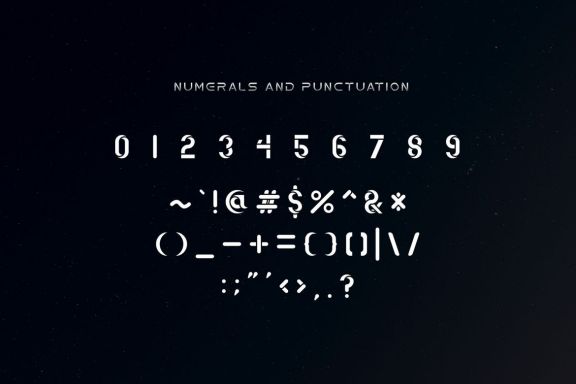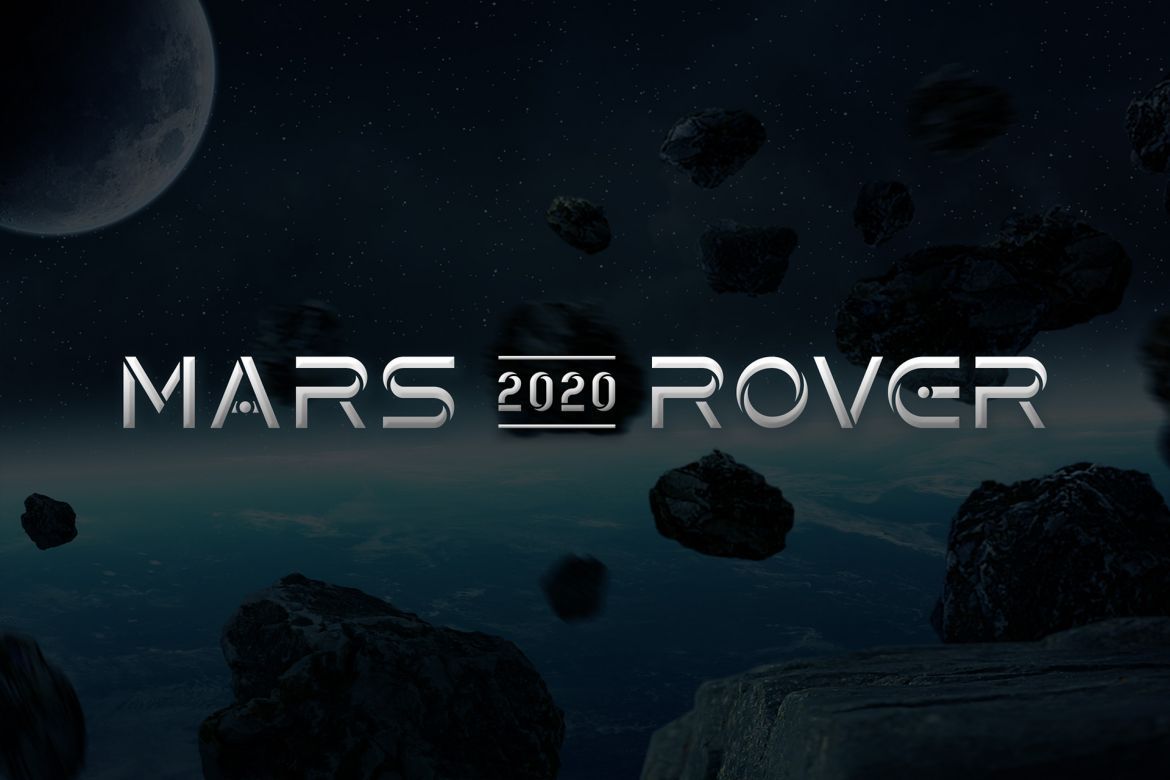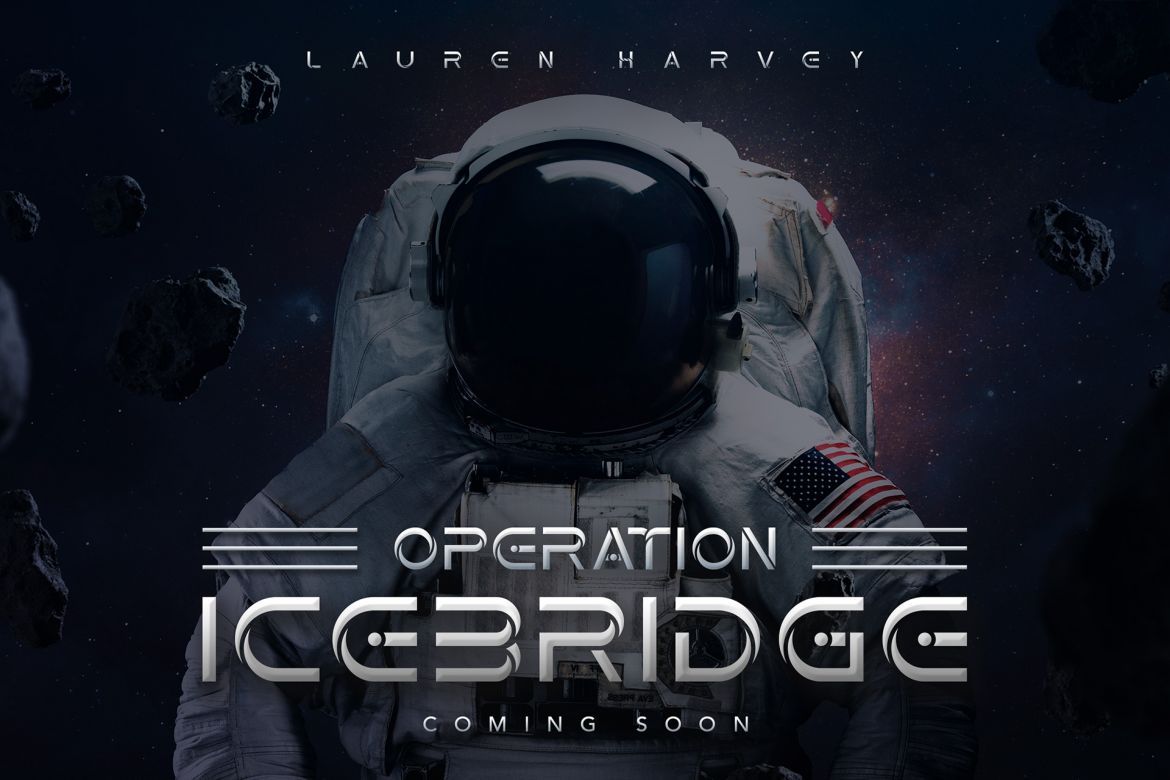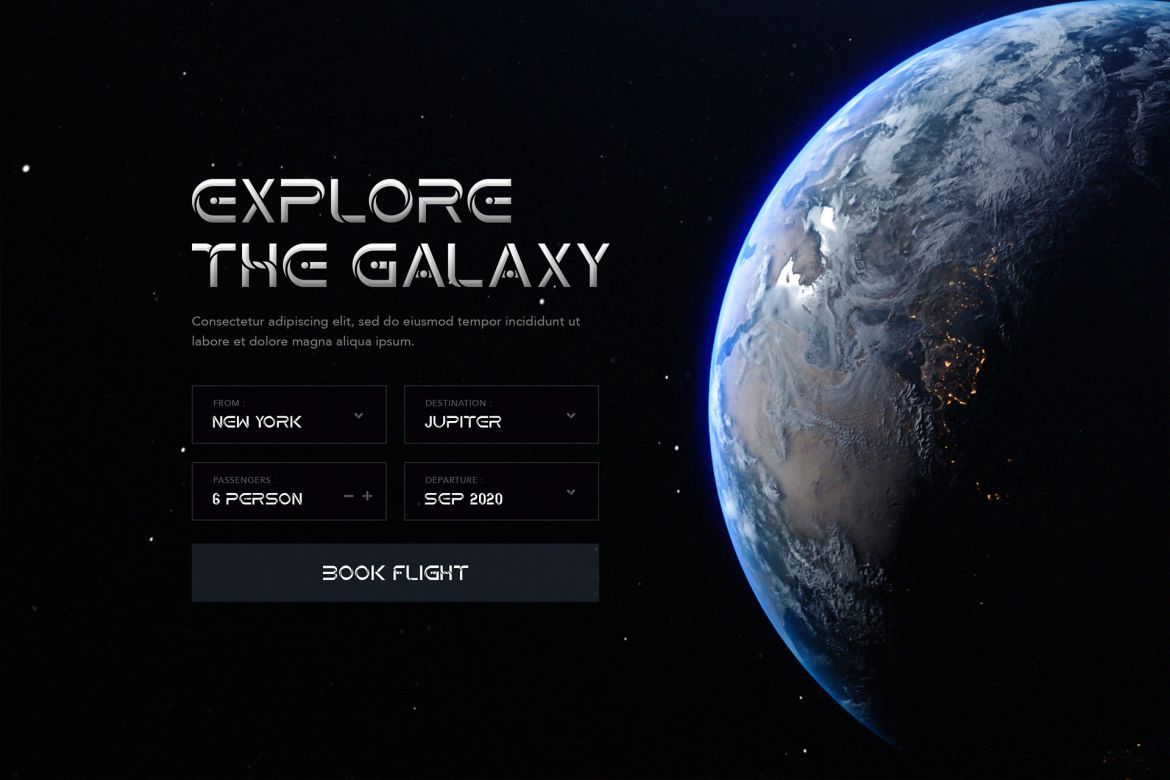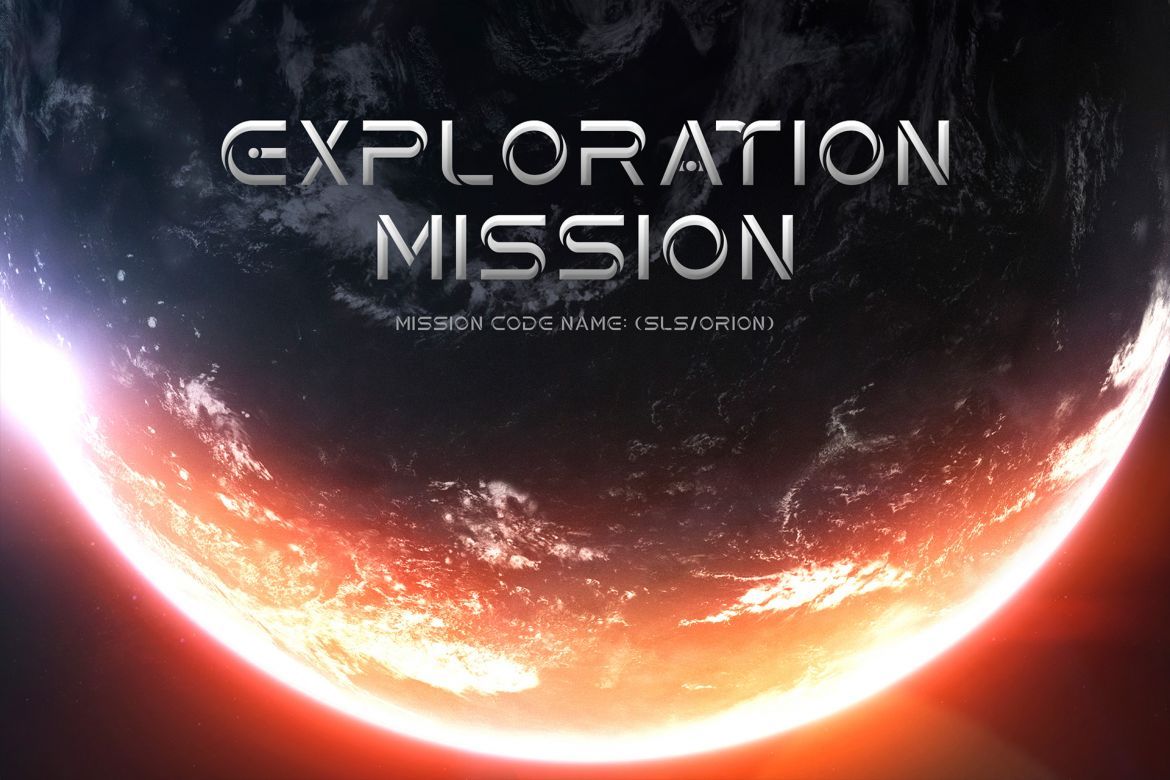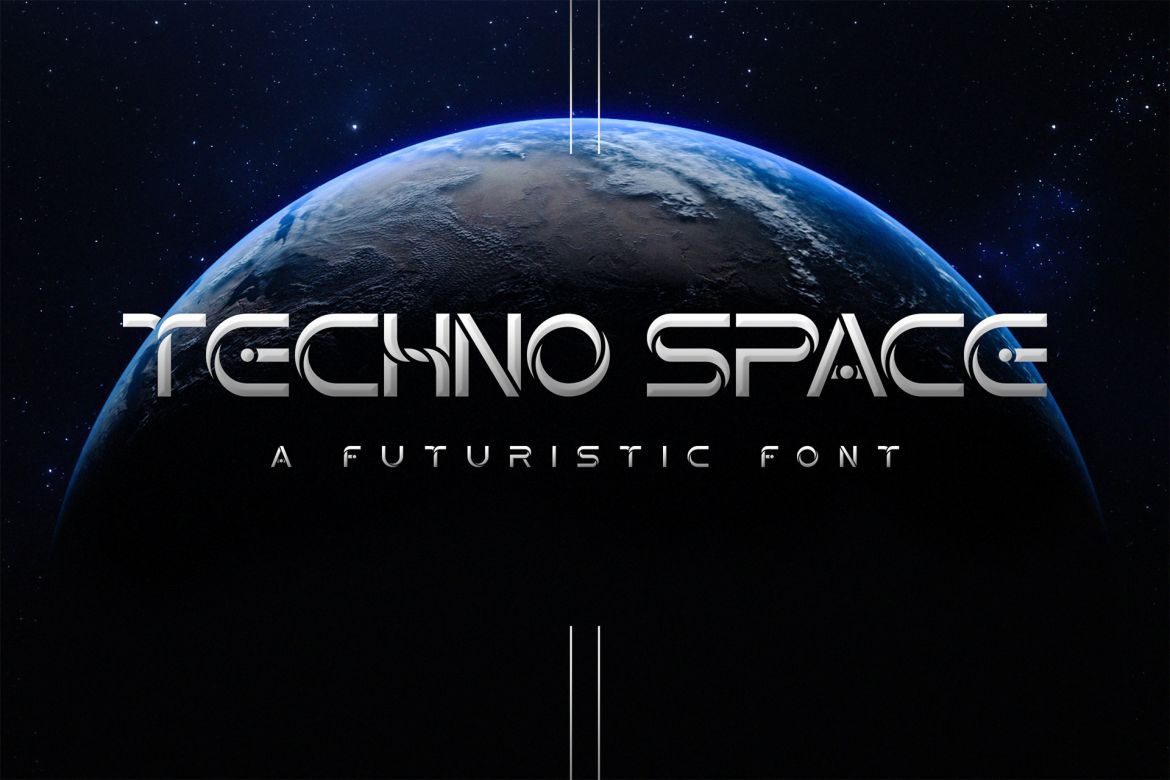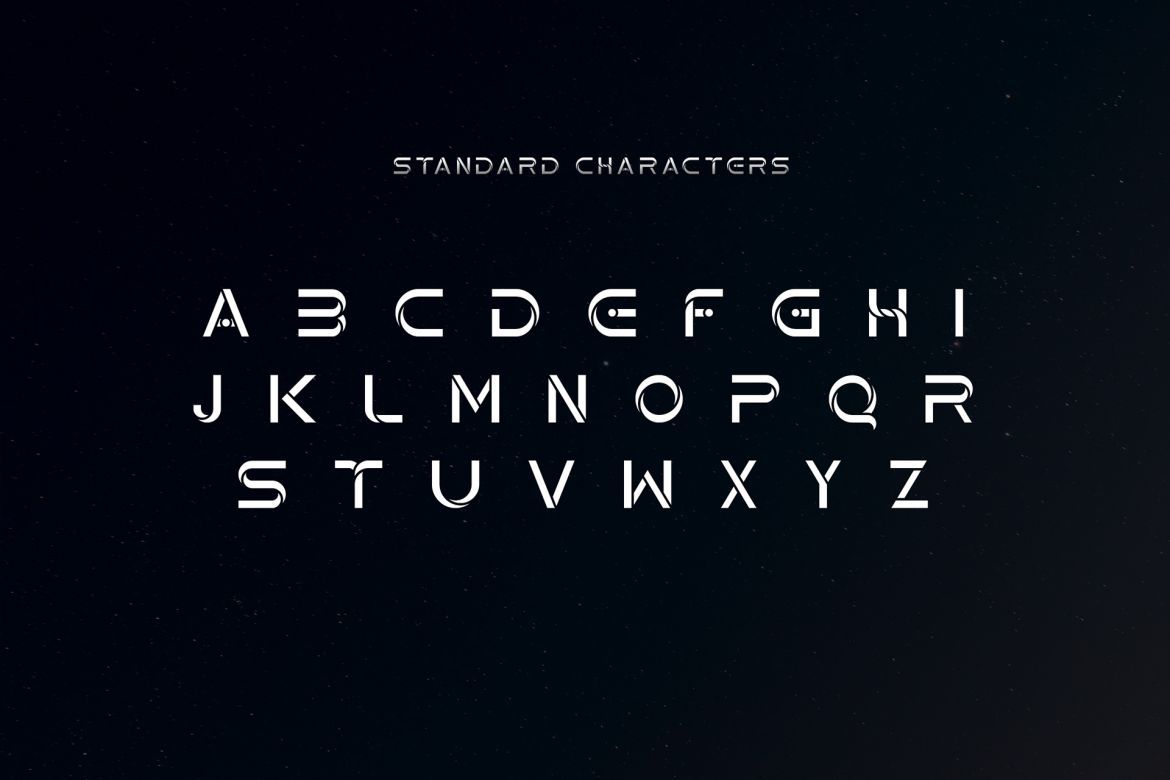
Techno Space Futuristic Font
Techno Space is a futuristic font type, it's a perfect fit for the modern technology and outer space theme, movies logo - or a stylish text overlay to any background image. It's also could be good for formal text.
• font type with futuristic character
• numbering and punctuation
• uppercase & lowercase letters